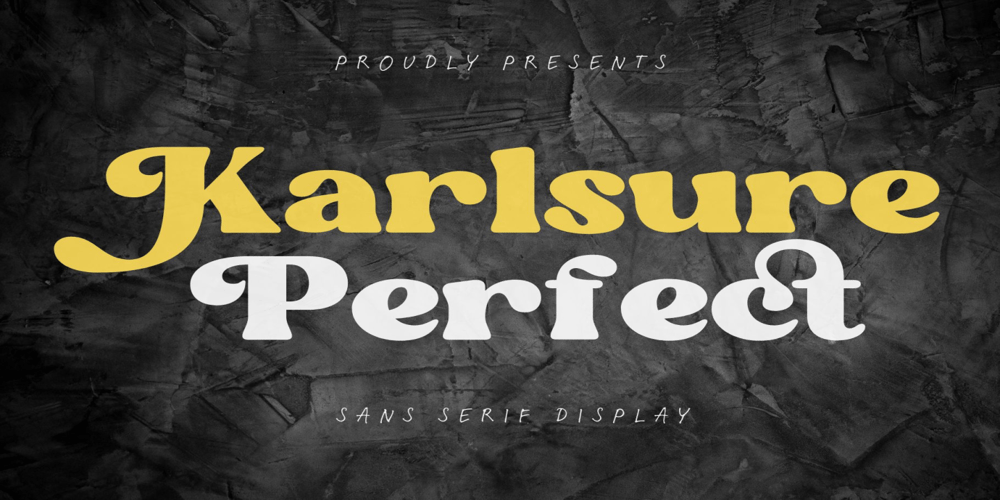
Karlsure perfect Font Family was designed by Karen Ackoff and published by Adita Fonts. Karlsure perfect contains 1 styles and family package options. Karlsure Perfect✎A classy retro serif font with a modern contemporary feel. Includes a ton of fun alternates to dress up your text! ☻Karlsure Perfect classy retro serif font is perfect for: business cards, greeting cards, posters, cover book, social media, planner prints, logos, branding, wedding invitations, and websites